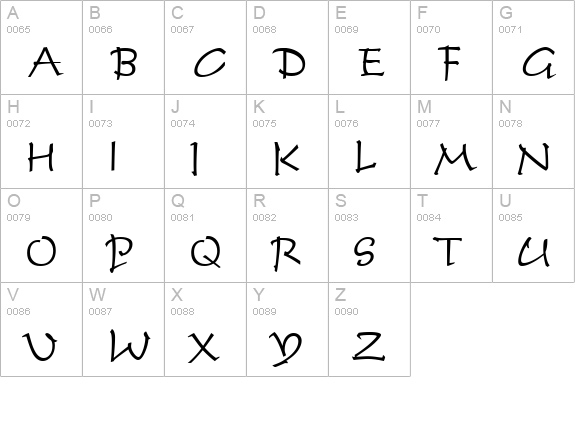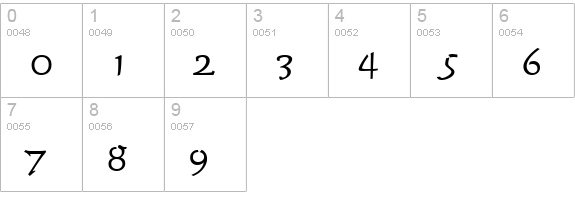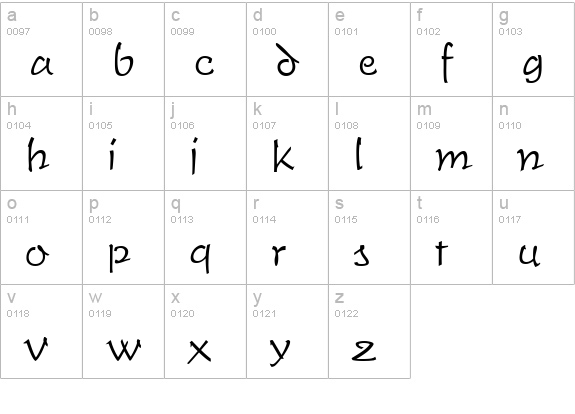
TiogaScript-Light-Regular Font Details
TiogaScript-Light-Regular is a refined, elegant variant in the TiogaScript typeface family \xE2\x80\x94 well suited to elegant body text, refined sub-headings, and luxury branding.
TiogaScript-Light-Regular is a delightful and elegant font that exudes a sense of sophistication and style. Its slender lines and graceful curves make it perfect for adding a touch of refinement to any project. This font is ideal for use in invitations, greeting cards, logos, and more. The best part is that TiogaScript-Light-Regular is completely free to download! You can easily access this beautiful font at FontsMarket.com and enhance your designs with its timeless appeal. Don't miss out on this opportunity to elevate your creations with the exquisite charm of TiogaScript-Light-Regular.